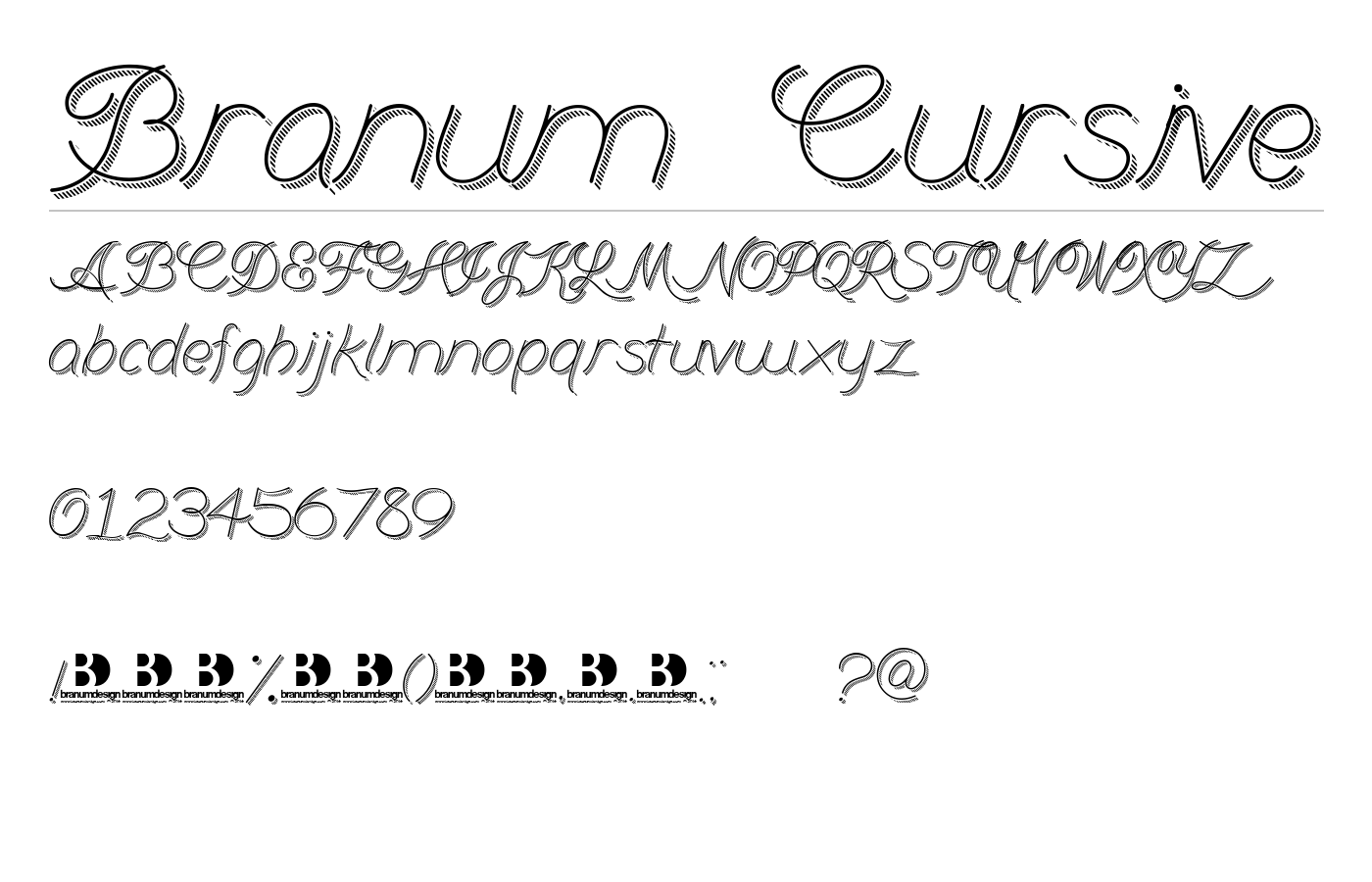
Branum Cursive is an elegant script font featuring delicate, flowing letterforms with fine diagonal hatching that adds a distinct textured look. Its graceful strokes and moderate contrast give it a sophisticated, vintage charm ideal for invitations, branding, and decorative headlines where a refined, artistic touch is desired. This font works best in designs aiming for a stylish, handcrafted feel with a unique visual flair.
Branum Cursive Font
About Branum Cursive Font
| Font family | Branum Cursive Font |
| Designer | Branum Design LLC |